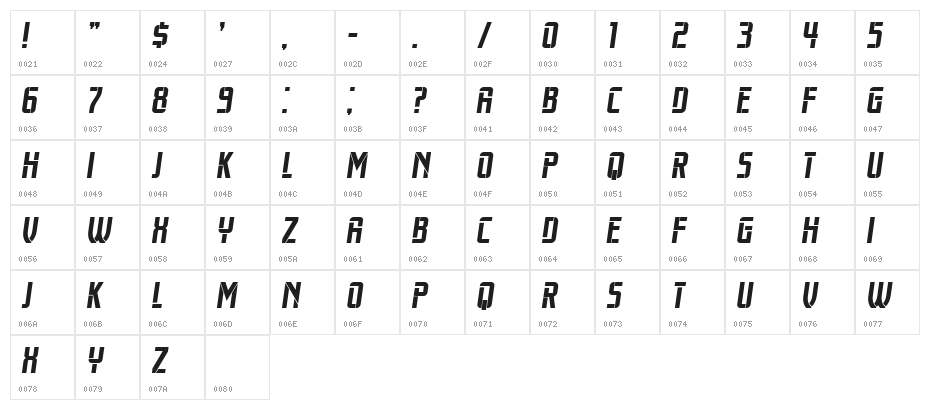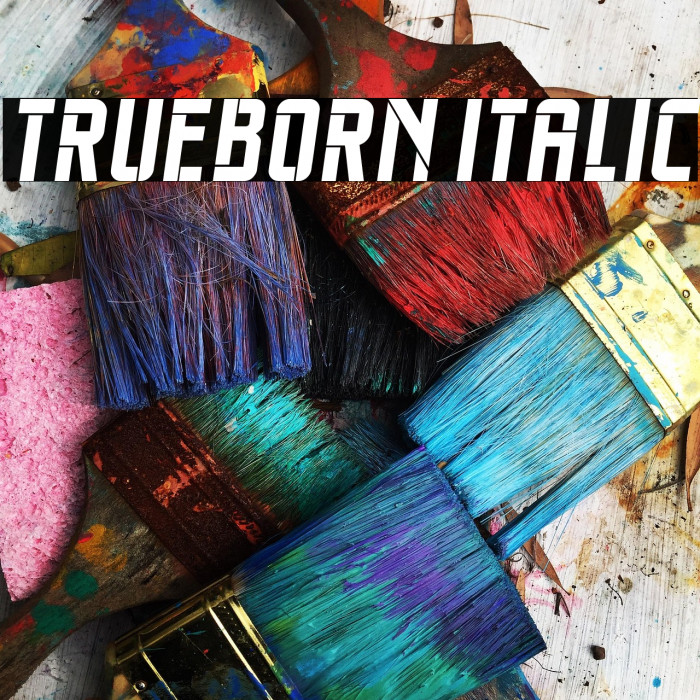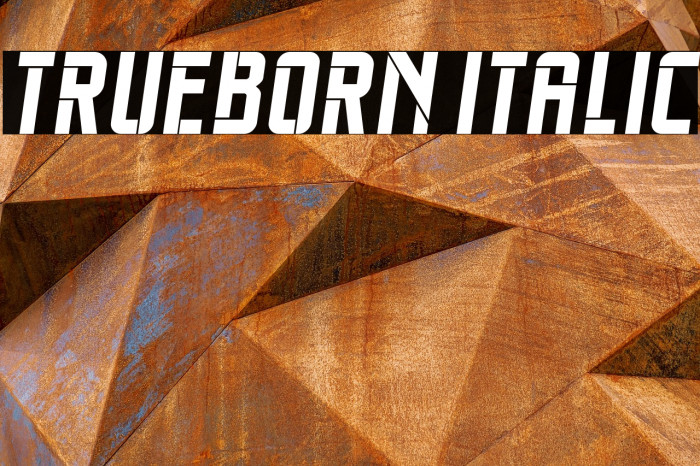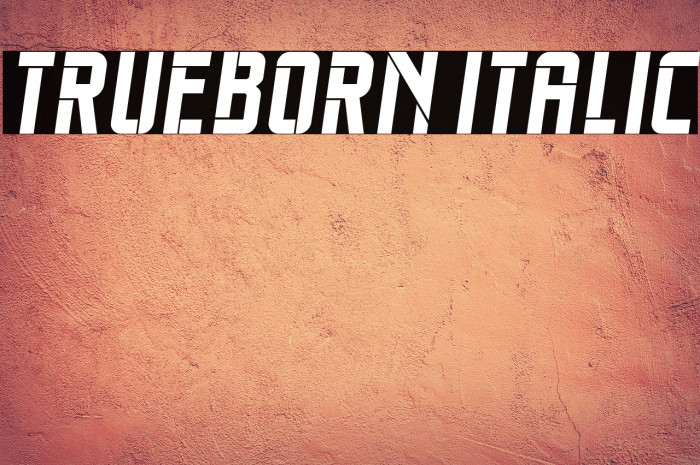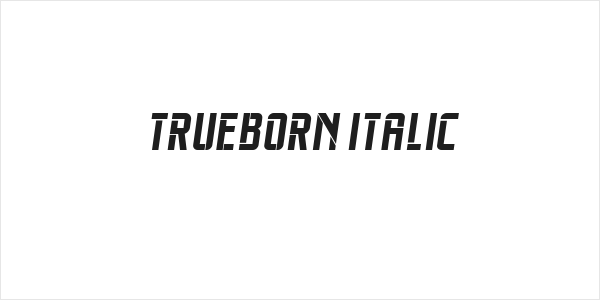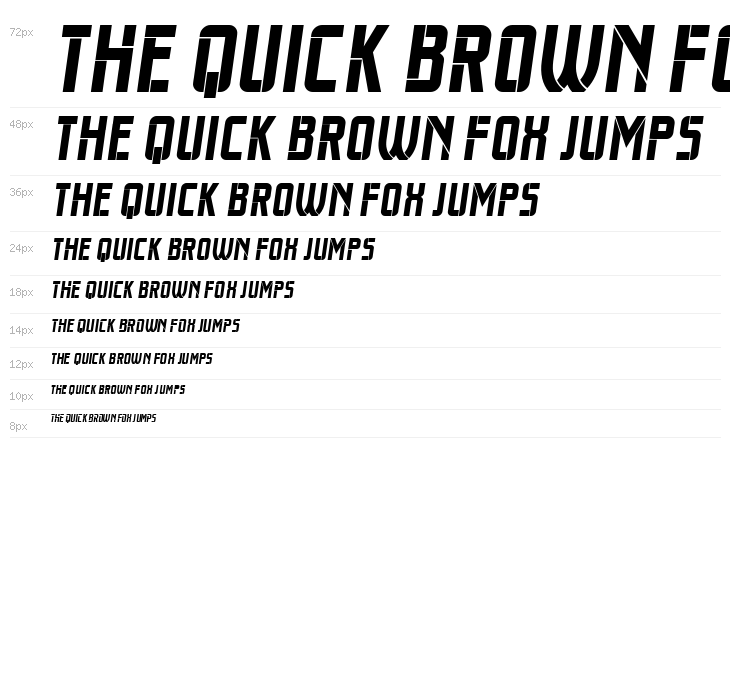
Trueborn Italic Font
Trueborn Italic Description
This font features a bold and dynamic design with a strong italic slant, giving it a sense of motion and energy. The characters are constructed with sharp angles and clean lines, creating a modern and futuristic appearance. The uppercase and lowercase letters maintain a consistent style, with a slight variation in width that adds visual interest. The numerals are equally bold, ensuring readability and impact. Special characters are designed to match the overall aesthetic, making this font suitable for a variety of applications where a contemporary and assertive look is desired.
| Proposed Projects | Ideal for sports branding, tech-related designs, dynamic posters, and modern advertising campaigns. |